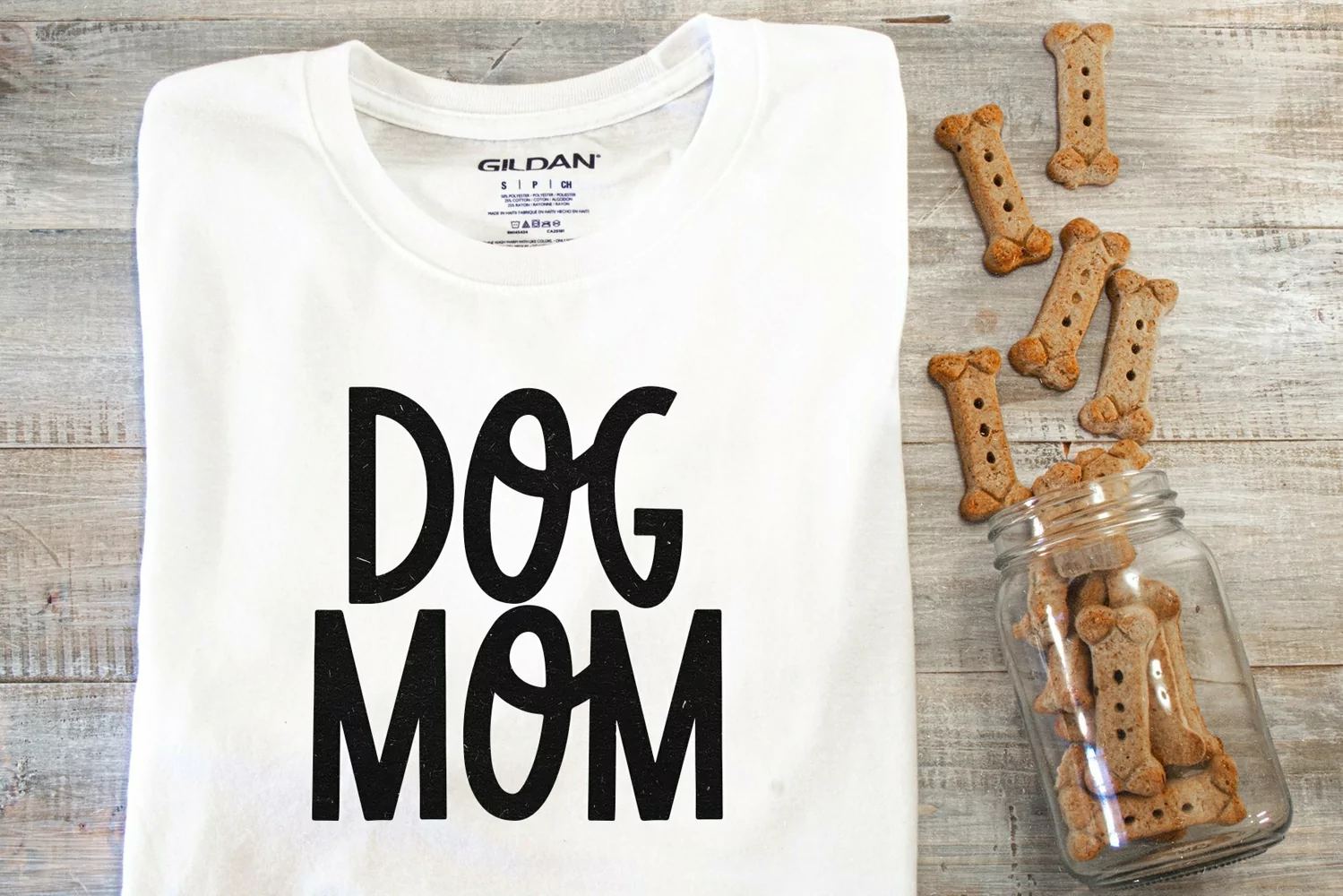
Winter Holiday is a fun and quirky handwritten font!
This font is perfect for quotes, shirt designs, websites, branding, children's designs, svg designs, blogs, logos, invitations and more!